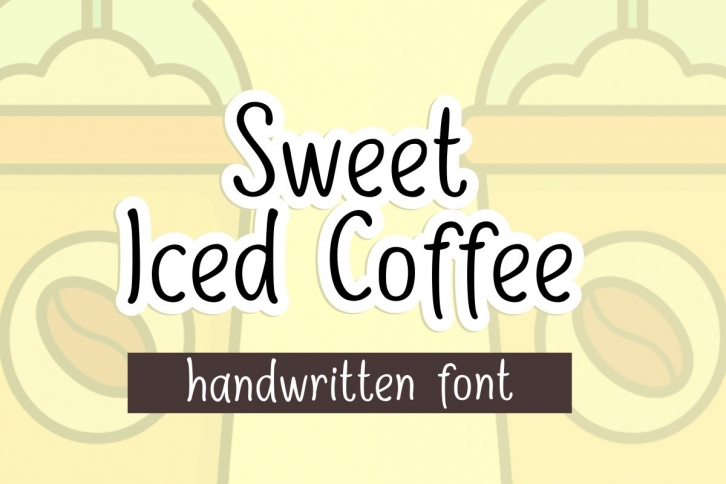
Sweet Iced Coffee is a beautiful font that was designed by deedeetype. It's a great choice for designers and creatives who need such a font. It was released on December 26, 2020 and the file size is 20.50 MB. Sweet Iced Coffee may give a more youthful, expressive and casual look to your project. It is a very beautiful, refined, elegant, and high-quality font.